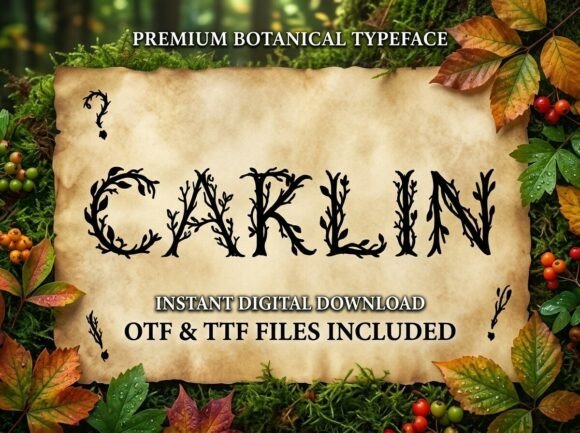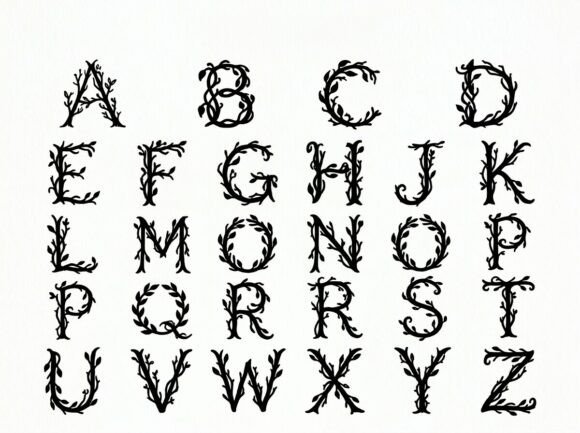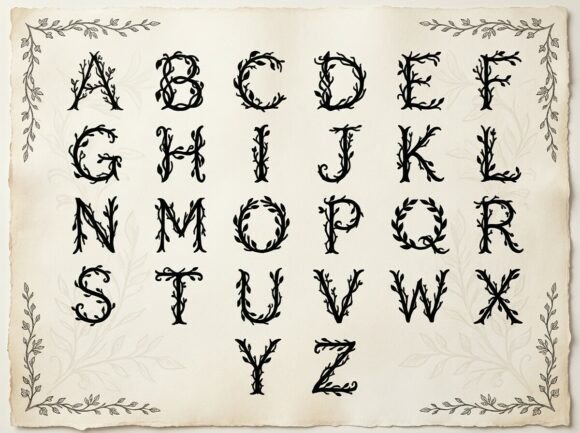
Introducing Carlin Font: A Stunning Decorative Display Font
Are you tired of using the same old fonts for your designs? Do you want to add a touch of uniqueness and creativity to your projects? Look no further than Carlin Font, a decorative display font that is sure to turn heads. In this article, we’ll take a closer look at what makes Carlin Font special and how it can elevate your designs.
Carlin Font is a stunning decorative display font designed to be the center of attention. With its unique artistic elements and strong visual personality, this font is perfect for creators who want to break away from the ordinary. Whether you’re working on a bold headline, artistic logo, or creative packaging, Carlin Font is versatile enough to make a lasting impression while maintaining a professional and polished finish.
⚠️ IMPORTANT NOTE BEFORE PURCHASE: Carlin Font is an ALL-CAPS (Uppercase Only) display typeface. This means it does not include lowercase letters. It is specifically designed for high-impact headlines, logos, and decorative initials where every letter is a work of art.
Carlin Font is perfect for designers and crafters who want to add a touch of elegance and sophistication to their projects. Whether you’re working on:
• Logos and branding: Use Carlin Font to create a unique and memorable logo that sets your brand apart.
• Headlines and titles: Add a touch of drama and flair to your headlines and titles with Carlin Font’s decorative and artistic elements.
• Packaging and labels: Use Carlin Font to create eye-catching packaging and labels that showcase your product in style.
• Art and craft projects: Add a touch of personality and whimsy to your art and craft projects with Carlin Font’s unique and creative design.
Tips for Using Carlin Font
Here are a few tips for getting the most out of Carlin Font:
• Use it sparingly: Carlin Font is a decorative font, so use it sparingly to add emphasis and impact to your designs.
• Experiment with colors and textures: Carlin Font looks great in a variety of colors and textures, so don’t be afraid to experiment and find the perfect combination for your design.
• Pair it with a simple font: Pair Carlin Font with a simple font to create a striking contrast and add visual interest to your design.
Carlin Font is a stunning decorative display font that is sure to elevate your designs. With its unique artistic elements and strong visual personality, this font is perfect for creators who want to break away from the ordinary. Whether you’re a designer, crafter, or DIY enthusiast, Carlin Font is a great addition to your font library. So why wait? Get Carlin Font today and start creating stunning designs that demand attention!